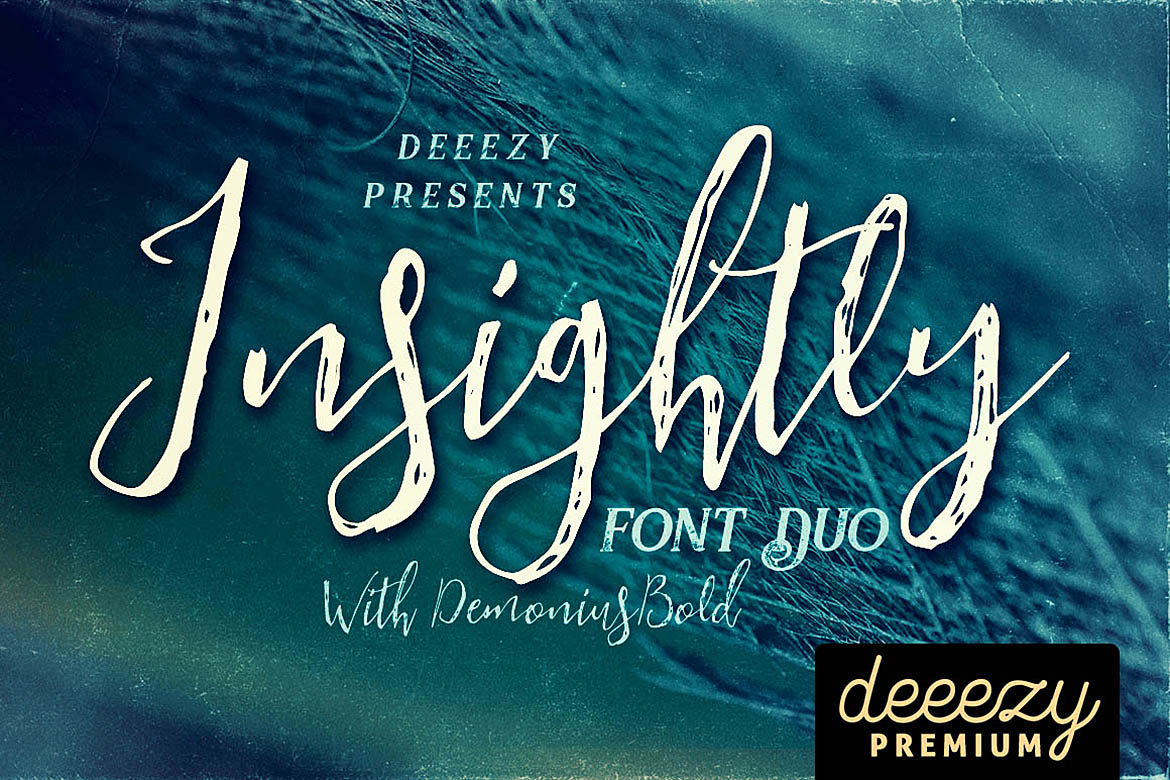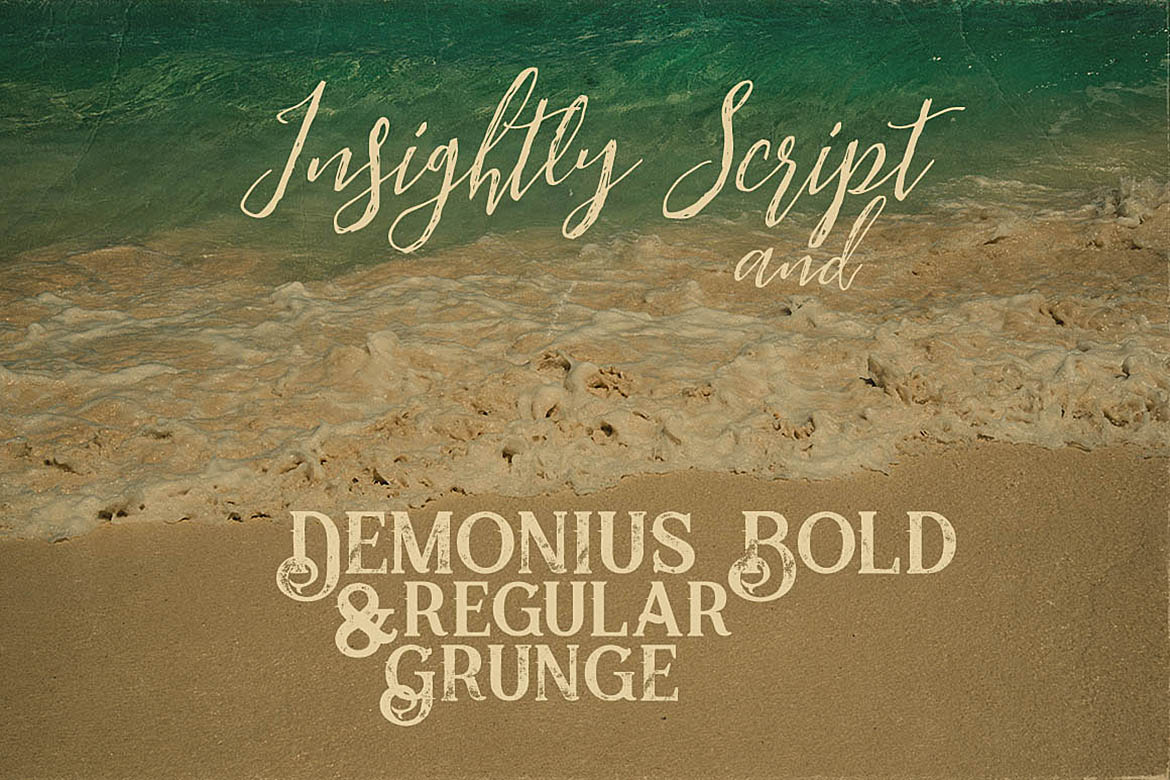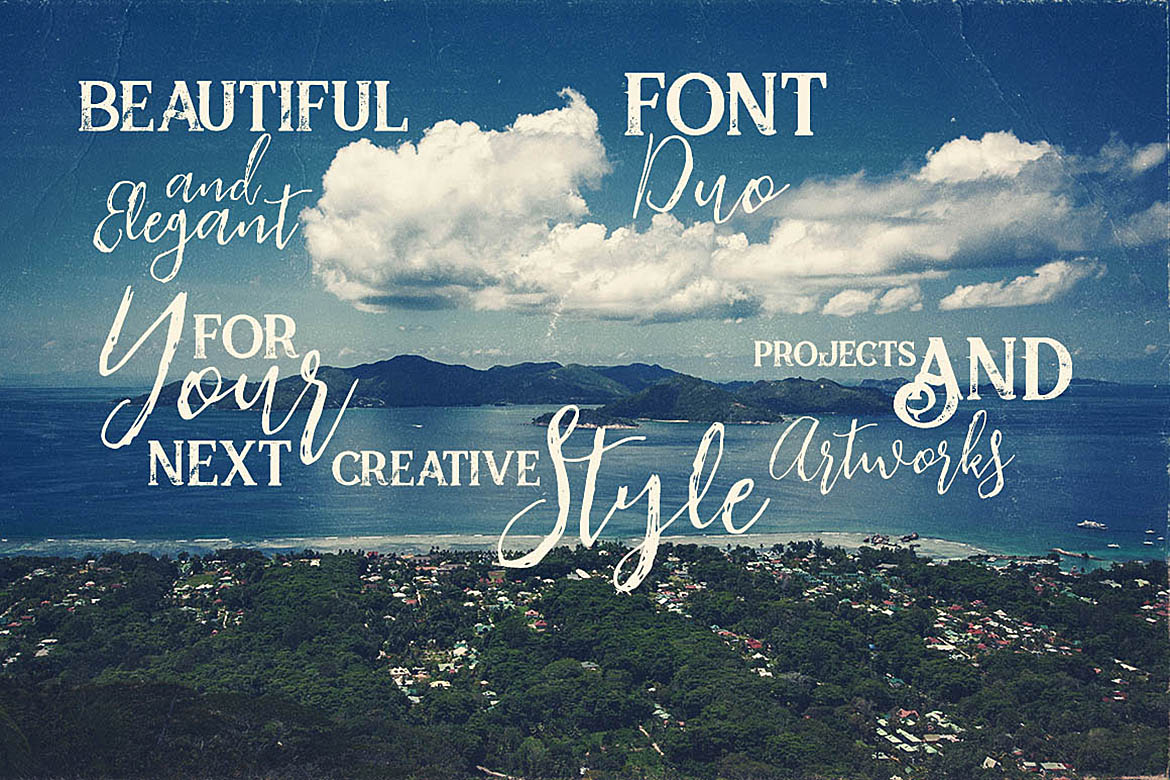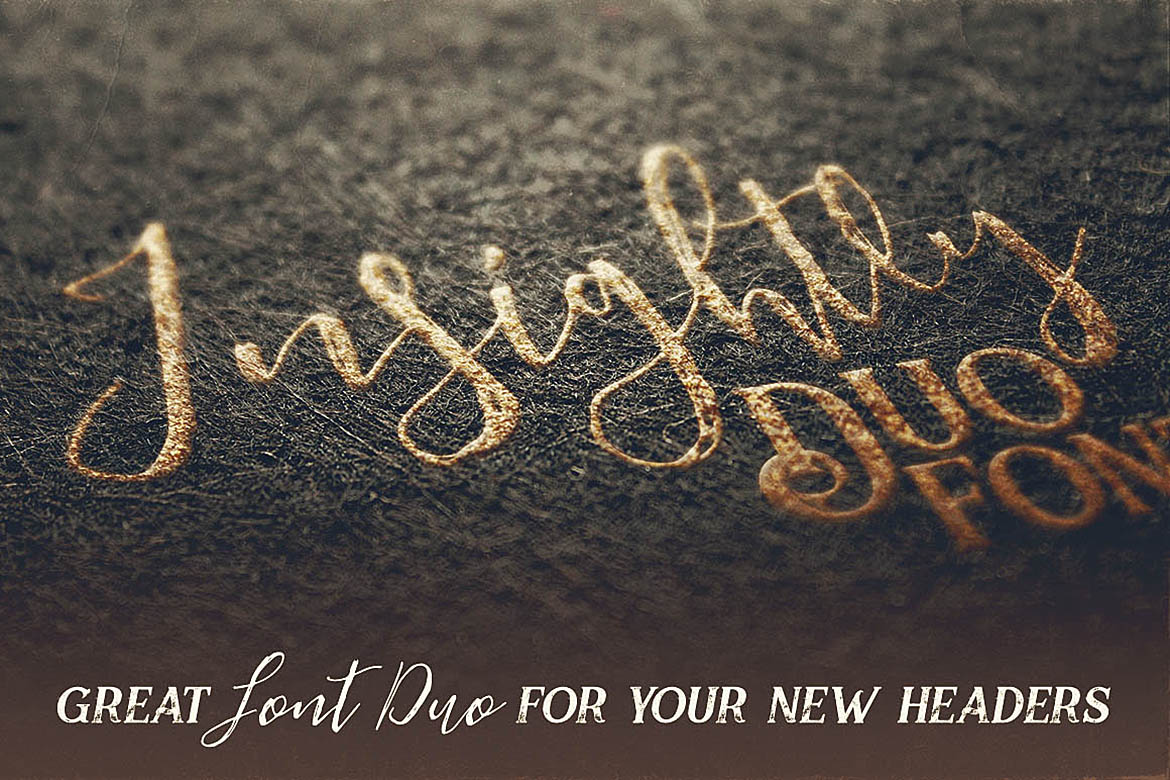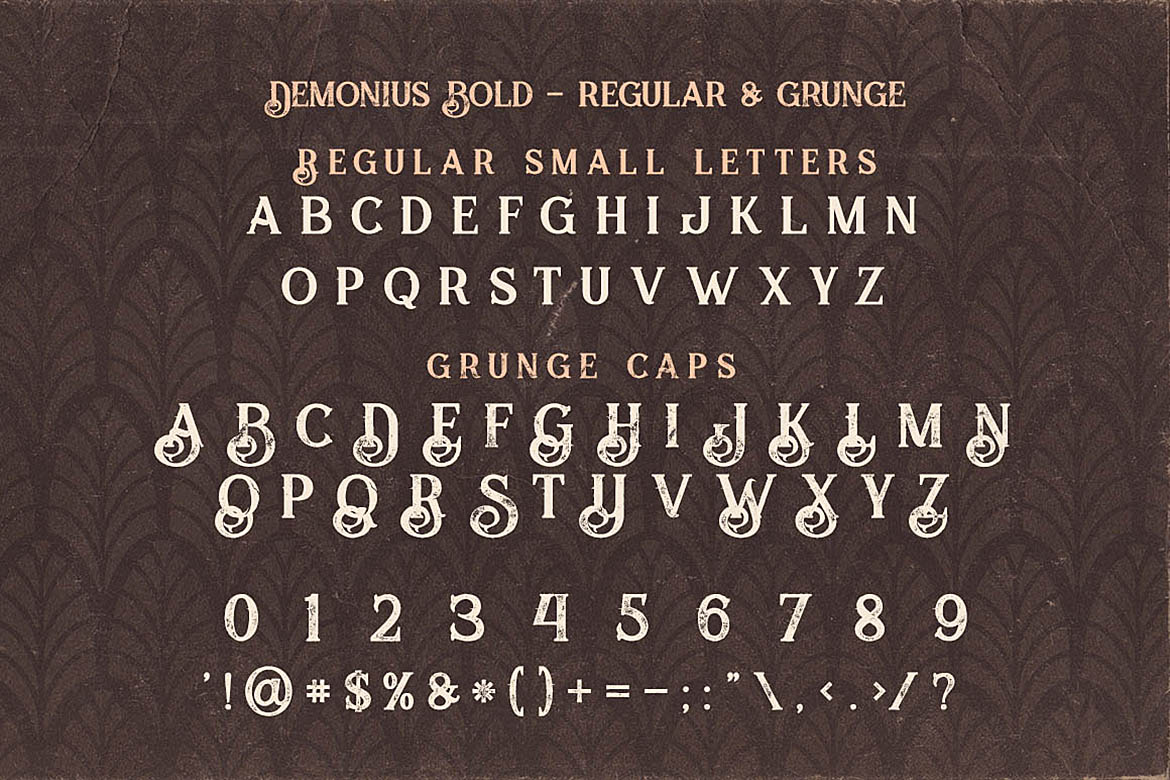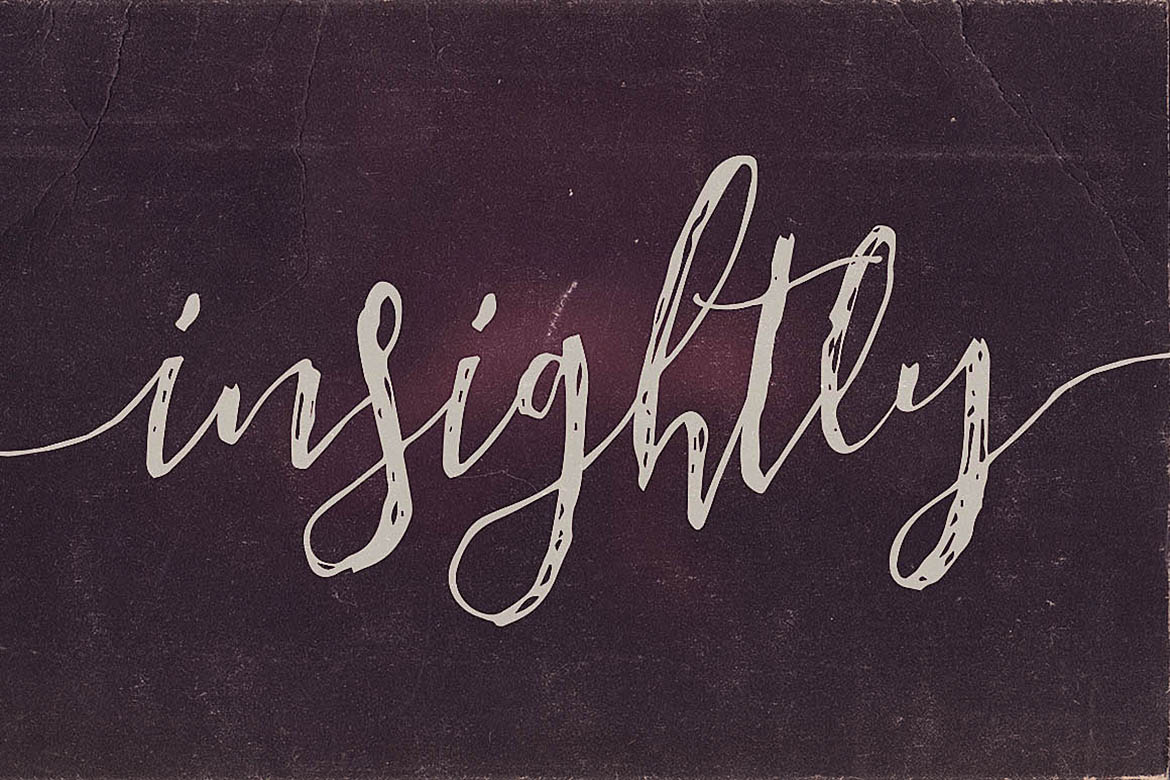
Insightly Font Duo Font
About Insightly Font Duo Font
Cool retro or vintage style font duo for your new projects.
First font is grunge & unique style brush script font with multi language support and lot of stylistic alternates + swash font.
Second font is bold display font with regular & grunge version (without multi language support).